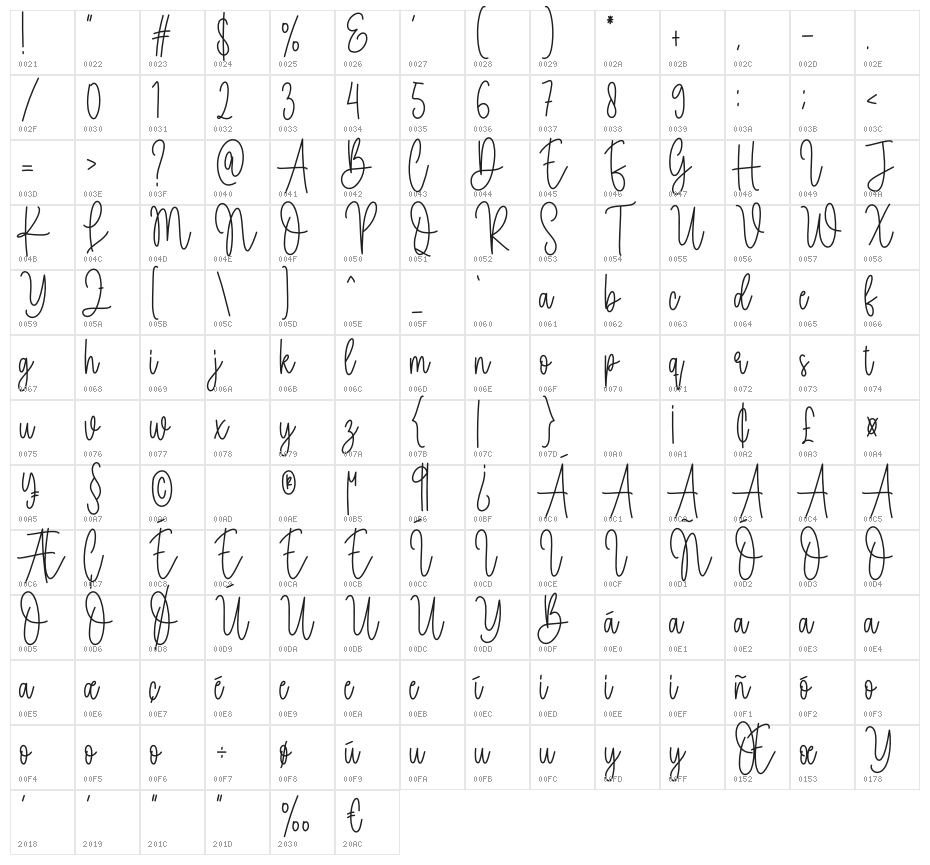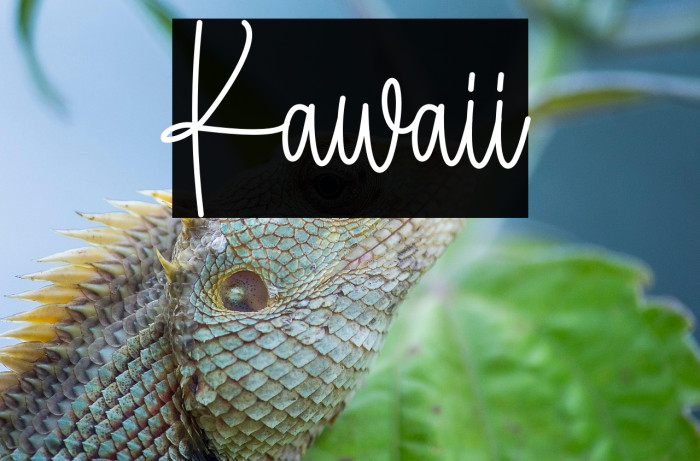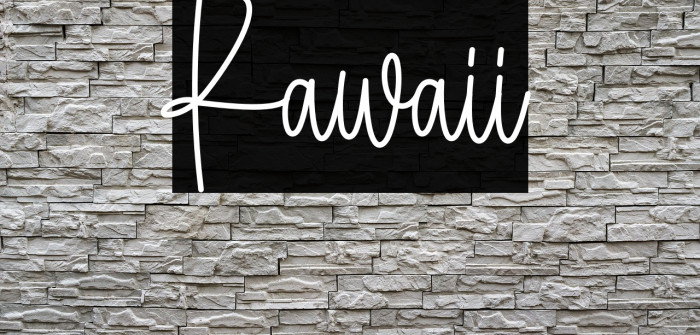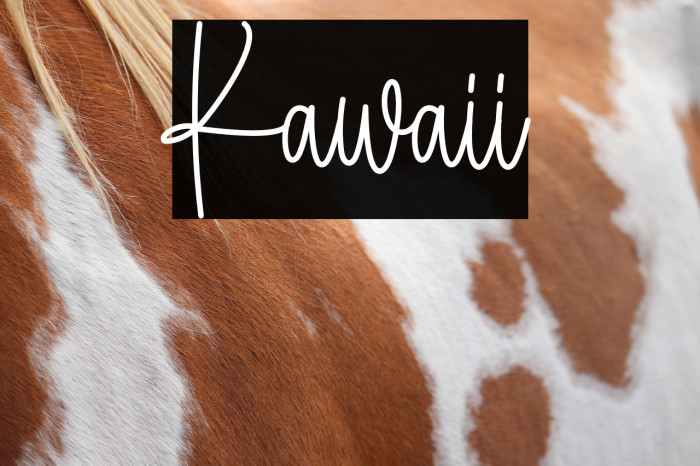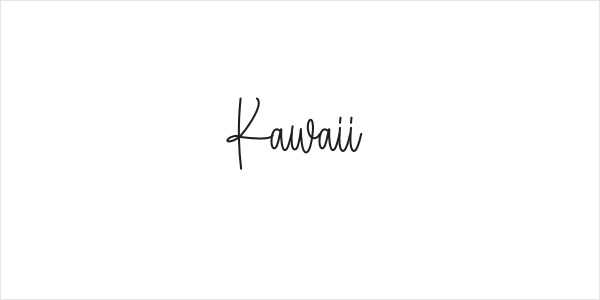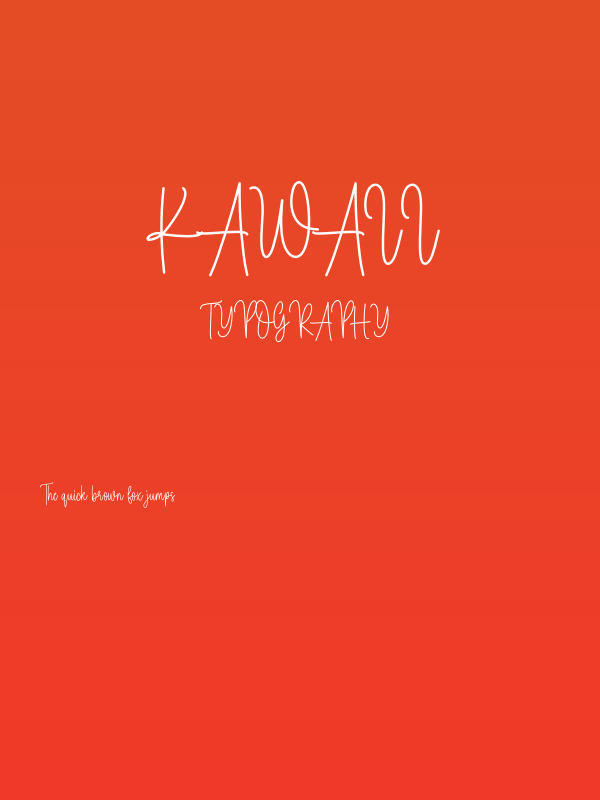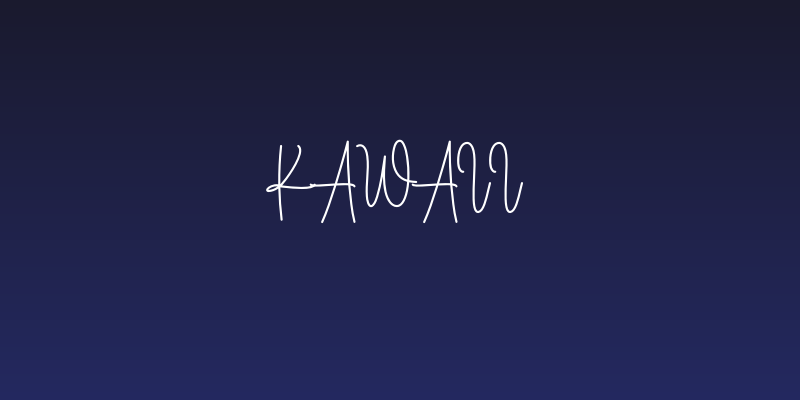
Kawaii Font
Kawaii Description
A playful and whimsical handwritten font with a casual, flowing style.
| Use Case | Headlines, Invitations, Greeting cards |
| Proposed Projects | Greeting cards, invitations, playful branding. |